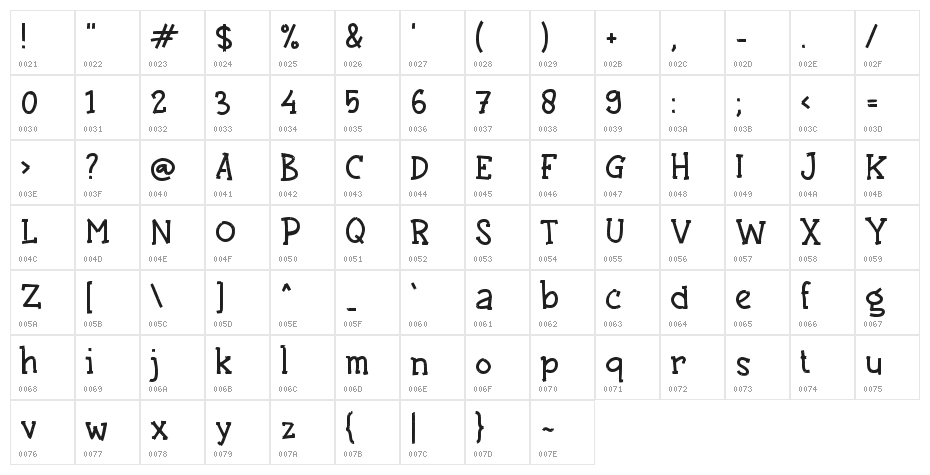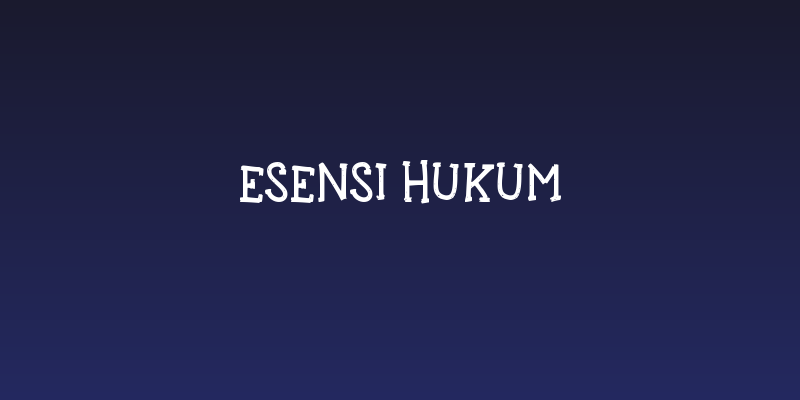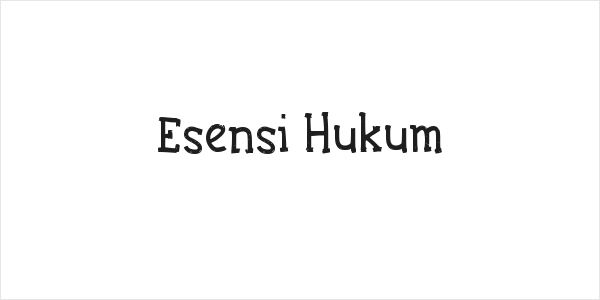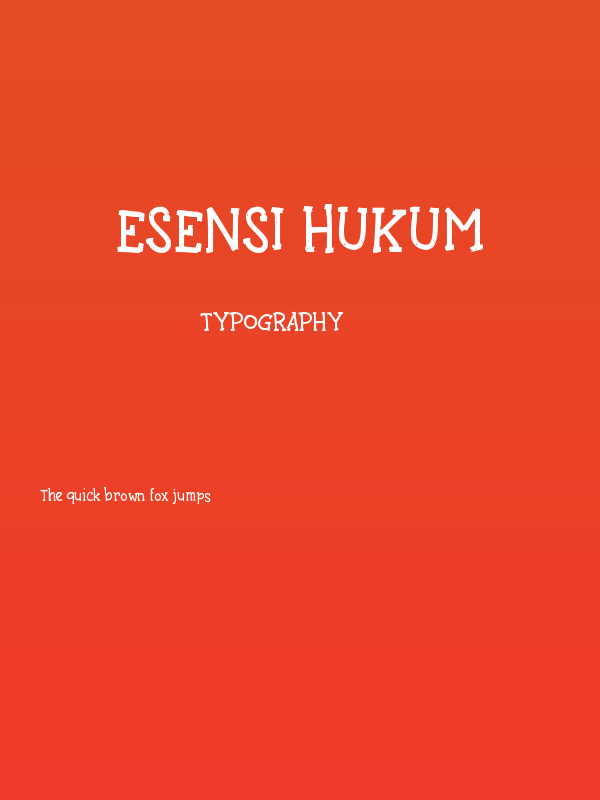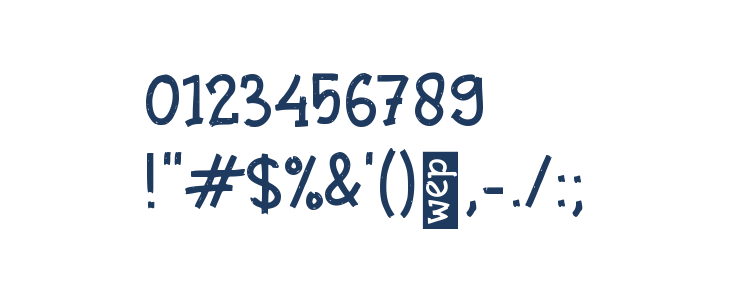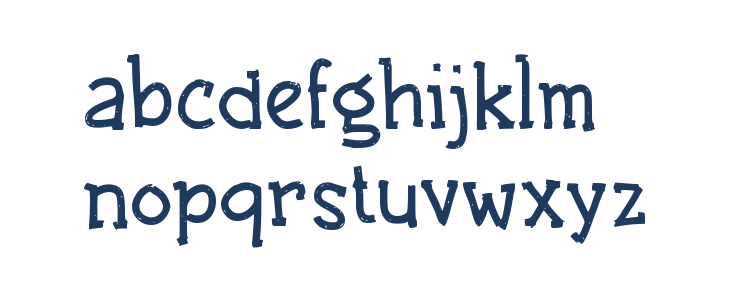
Esensi Hukum Font
Esensi Hukum Description
This font features a playful and slightly irregular design, reminiscent of hand-drawn lettering. The characters have a casual and informal appearance, with uneven strokes and a whimsical touch. The uppercase letters are bold and prominent, while the lowercase letters maintain a consistent style with a slightly smaller size. The numbers and special characters follow the same playful theme, adding to the font's overall charm. This font is ideal for projects that require a fun and approachable aesthetic, making it suitable for children's books, playful branding, or creative invitations.
| Proposed Projects | Ideal for children's books, playful branding, creative invitations, and casual posters. |